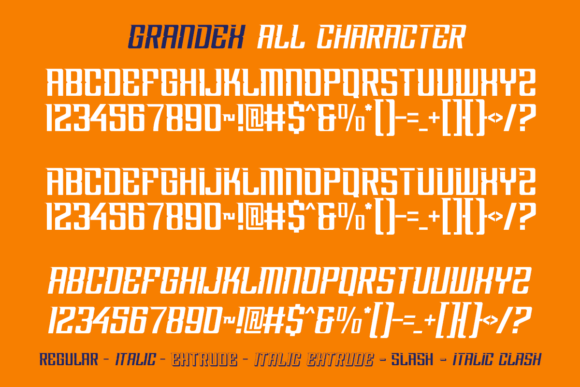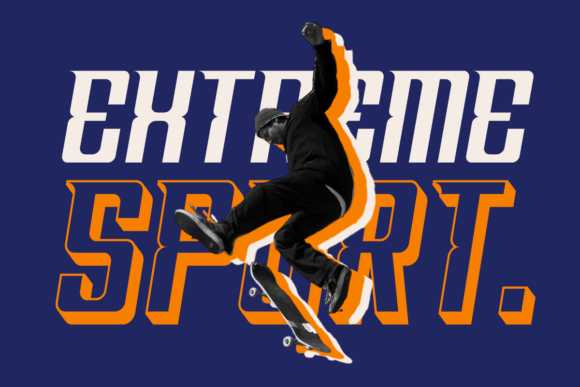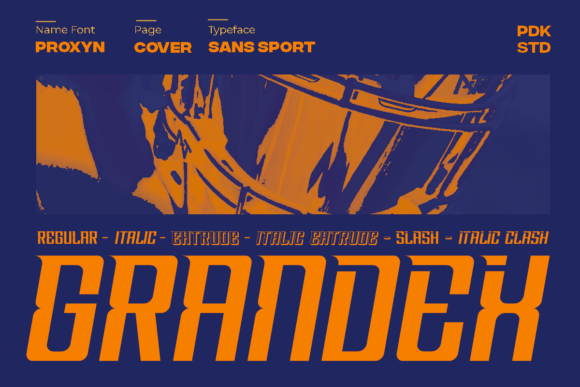
Grandex Font, the ultimate modern sports font designed to capture the thrill and intensity of racing. Grandex features bold, all-caps letterforms that evoke speed, power, and the roaring energy of high-performance machines. With sharp corners and solid shapes, this font brings the racing spirit to life, making it the perfect choice for any design that demands attention.